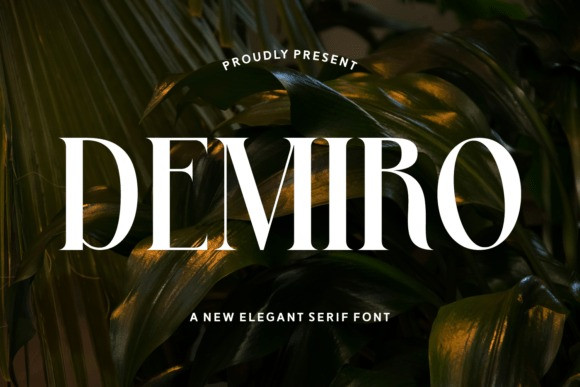
Demiro Font
Demiro Font, a new elegant serif font. The dramatic lighting and rich botanical setting create a luxurious and sophisticated atmosphere that complements the font’s classic, high-contrast design.